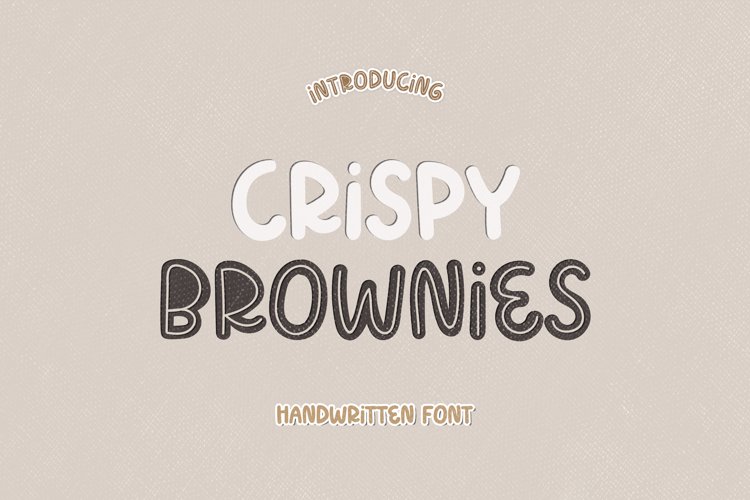
The Crispy Brownies is a bouncy & cute layered handwritten font. Get inspired by its incredibly playful feel. Use this font to turn any design project into a standout!
This is an ALL CAPS font with and without layering. It offers support for all characters of the English language. Numbers and standard punctuation glyphs are included.
Crispy Brownies is perfectly suited for Quotes, Branding, Logos, Greeting Cards, Invitations, Stationery Design, Children's designs, T-shirts, Packaging designs, Poster, Typographic designs, Papercrafts, Digital crafts, and so much more!